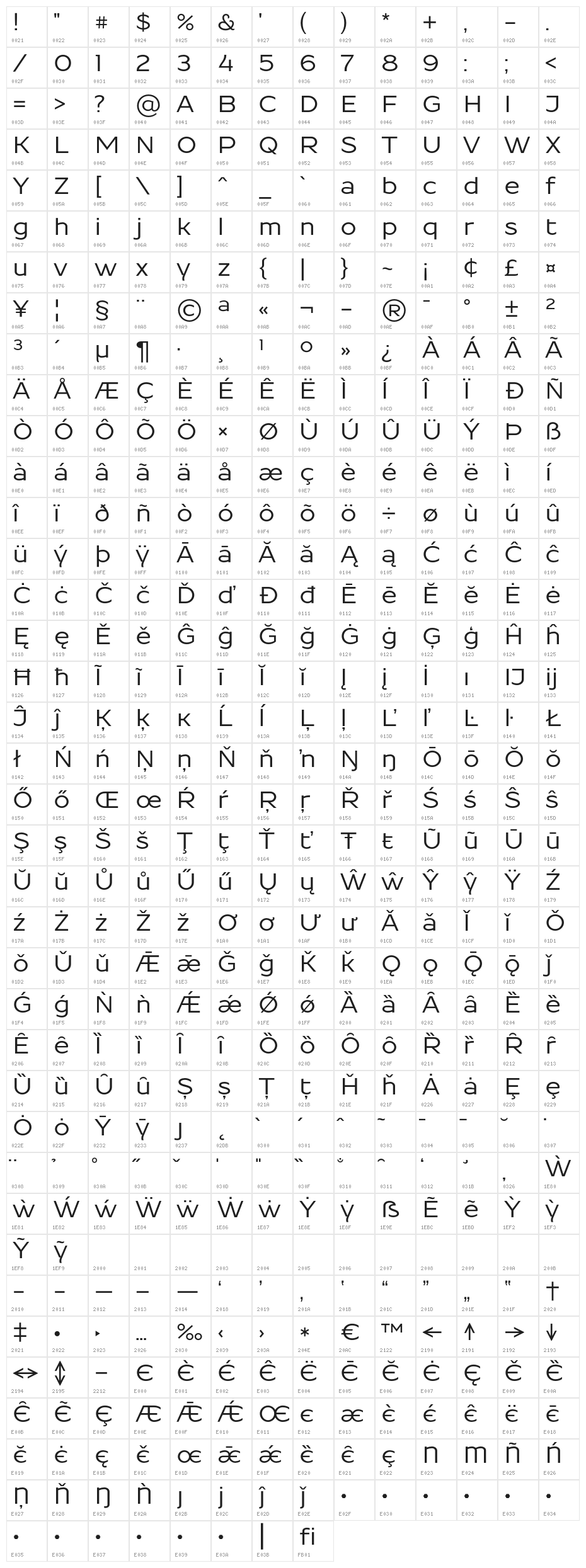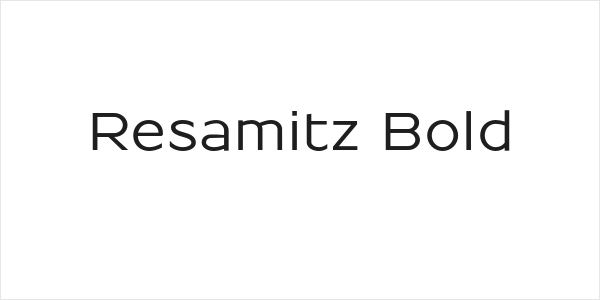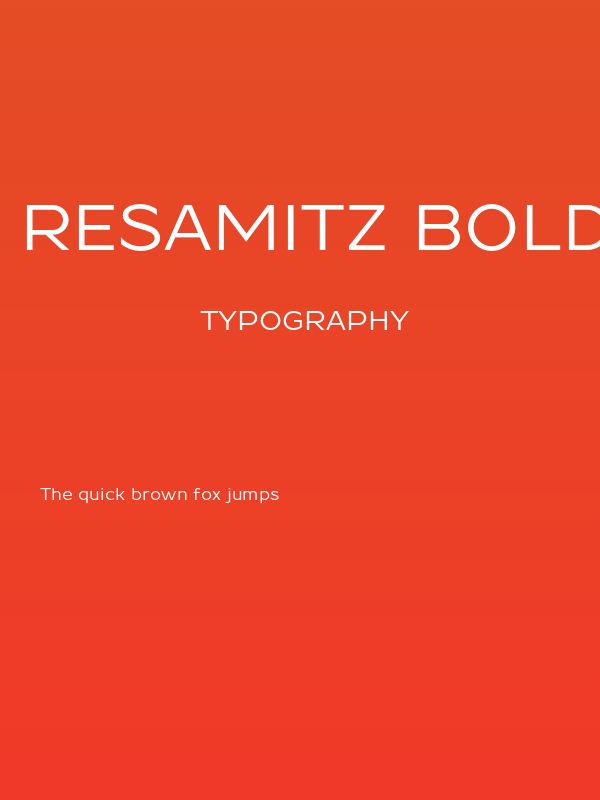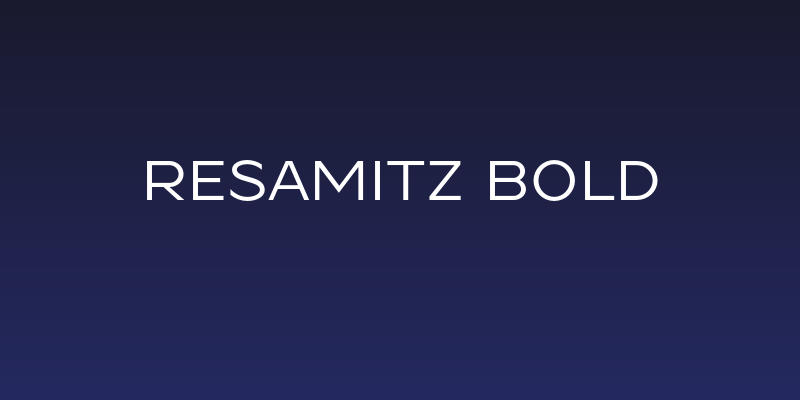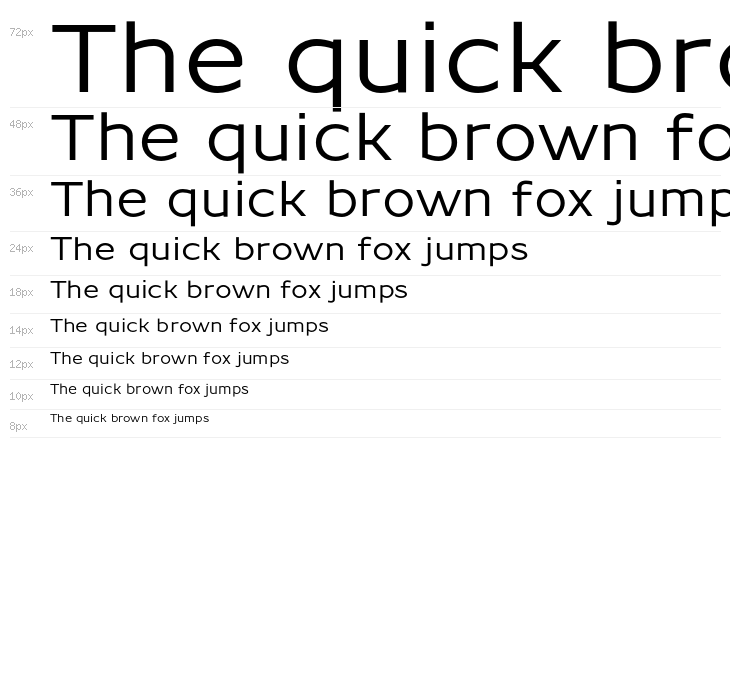
Resamitz Bold Font
Resamitz Bold Description
This font features a clean and modern sans-serif style with a bold weight. The characters are well-defined with smooth curves and straight lines, providing a contemporary and professional appearance. The uppercase letters are uniform in height, while the lowercase letters maintain a consistent baseline, enhancing readability. The numerals are clear and distinct, making them suitable for various applications. Special characters are included, offering versatility for different design needs. Overall, this font exudes a sense of clarity and precision, making it ideal for digital and print media.
Use CaseHeadlines, Body text, Logos
Proposed ProjectsIdeal for branding, advertising, web design, and editorial layouts.